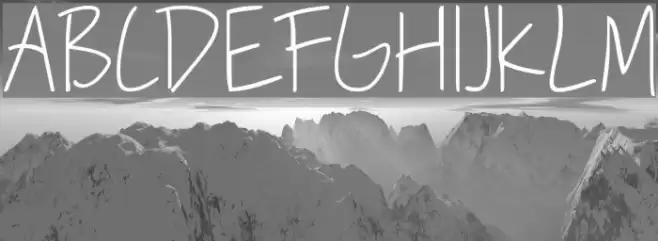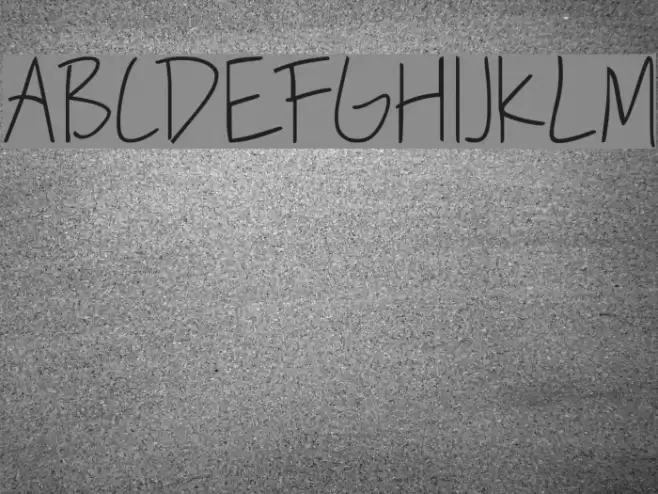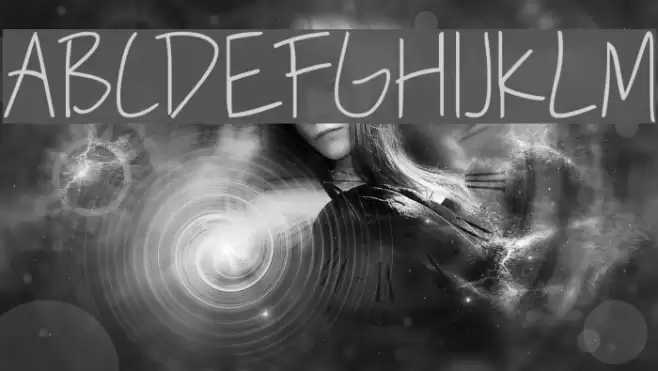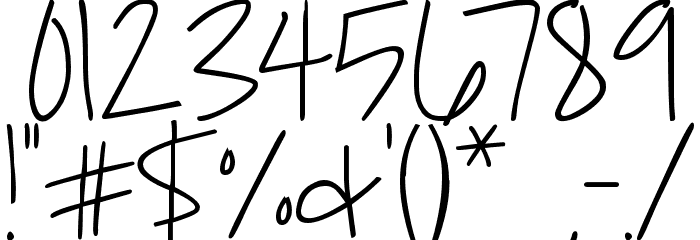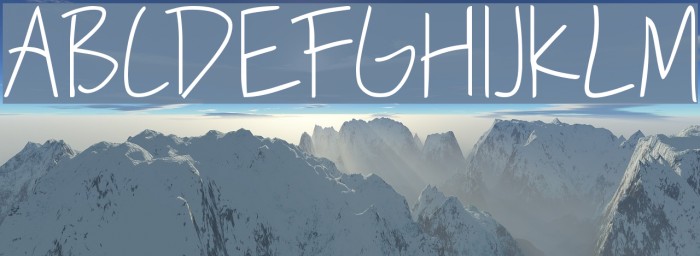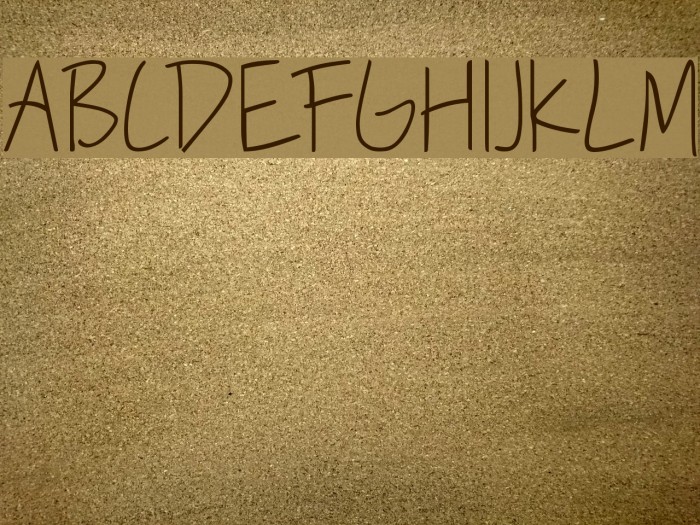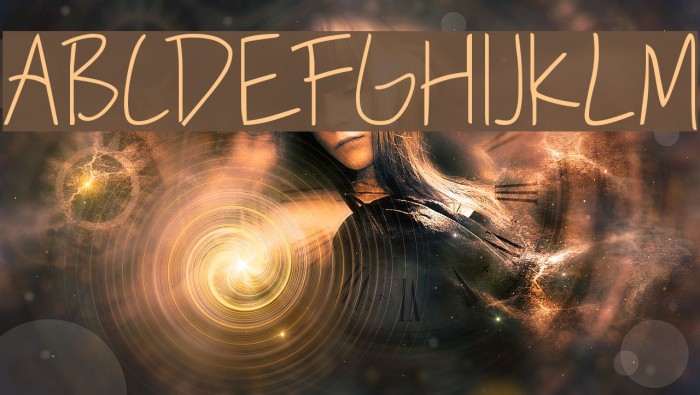
Roddy Font
Roddy Description
This font embodies a casual, handwritten style with a playful and informal appearance. The letters are slightly slanted, giving it a dynamic and lively feel. The strokes are consistent in width, contributing to a uniform look across all characters. The uppercase and lowercase letters maintain a cohesive style, with rounded edges and a smooth flow. The numerals and special characters are designed to match the overall aesthetic, ensuring versatility in various applications. This font's approachable and friendly vibe makes it suitable for projects that require a personal touch.
A casual, handwritten font with a playful and informal style from Handwritten fonts.
- Proposed Projects: Ideal for greeting cards, personal blogs, children's books, and informal branding.
- Overall Style: Casual
- Use Case: Headlines, Informal text, Personal projects